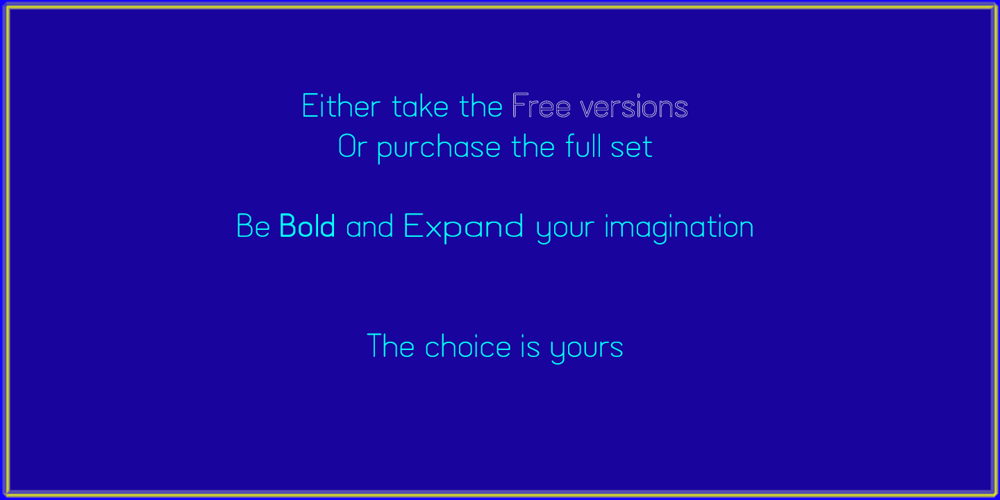
Lemonite Font Family was designed by Graham Meade and published by Typotheticals. Lemonite contains 10 styles and family package options. Lemonite (Regular and Expanded) is a self examination in whether, after five years without attempting to design any new fonts, I was still capable of creation. Lemonite is the result, and even though its plain, it showed me I could still work. I have made two of the face free to anyone who wishes to have a look, so please feel free, no obligations, to take them and use them if you have a use. Why so long ? Well, we do age, and with age comes the usual benefits, like Glaucoma and a touch of Arthritis in the old digits, and that’s made computer work a little… interesting for me over the past couple of years. Anyway, if you don’t find my humble offering of any use, please search the fontbase on Myfonts, and you will sure to find a suitable font from one of the fantastic designers there.